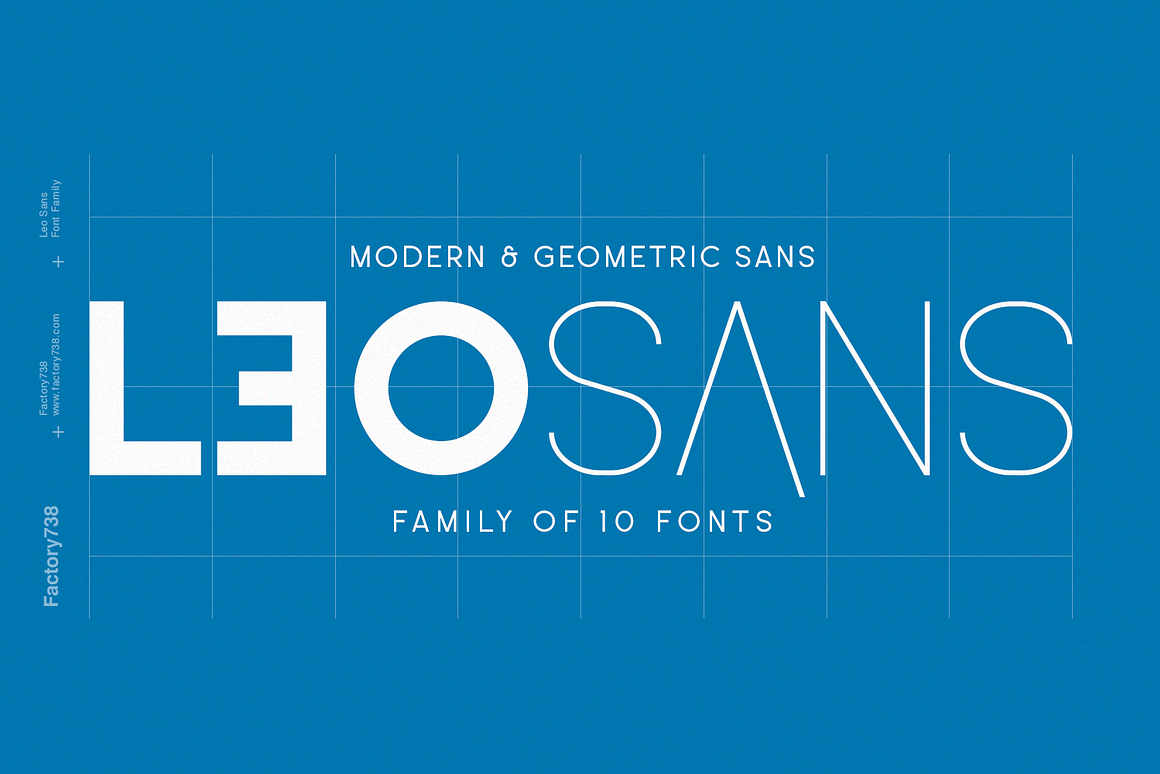
Leo Sans Font
Leo Sans Font is perfect for modern branding, corporate communications, web design, mobile applications, professional presentations, clean signage, tech companies, business documentation, contemporary advertising, and sophisticated visual communications. This versatile typeface excels in both digital and print applications requiring professional clarity.
Leo Sans Font is exciting because it delivers contemporary professionalism with clean letterforms that create authoritative visual appeal while maintaining exceptional legibility across all platforms. Its professional character generates trustworthy brand experiences that resonate with audiences seeking reliability, innovation, and business excellence.
The Leo Sans Font family includes regular, bold, light, italic, condensed, extended, and display variants, providing designers with comprehensive typographic options for various design scenarios and professional communication requirements.
Leo Sans Font represents the evolution of modern sans serif design, combining clean aesthetics with functional excellence to create letterforms that meet the demanding requirements of contemporary business communication. This sophisticated typeface reflects current professional standards while maintaining timeless appeal that ensures longevity in corporate applications. The font's versatile character makes it particularly valuable for technology companies, consulting firms, financial institutions, and progressive brands that require typography capable of conveying competence, trustworthiness, and forward-thinking innovation.
The systematic design of Leo Sans Font demonstrates meticulous attention to contemporary typography principles, with optimized spacing and balanced proportions that create excellent readability across diverse digital and print environments. This methodical approach ensures consistent performance from small interface text to large-scale environmental graphics where clarity and professionalism are paramount. The font's reliable qualities make it especially effective for brands in finance, education, professional services, and technology sectors that must communicate expertise through clear, accessible visual design.
Creative professionals working with Leo Sans Font Free Download will discover a powerful tool for modern corporate design challenges. Its contemporary styling bridges minimalist and expressive design approaches, making it suitable for established corporations and innovative startups requiring dependable, professional typography. The font's authoritative presence makes it particularly effective for business applications, corporate identities, professional publications, and service-oriented organizations that must communicate competence through modern, trustworthy visual design.
Whether developing corporate brand identities, creating business communications, or designing professional marketing materials, Leo Sans Font provides the typographic foundation needed for contemporary communications that inspire confidence and convey expertise while maintaining competitive advantage and achieving optimal professional impact across all modern business platforms requiring clean authority.